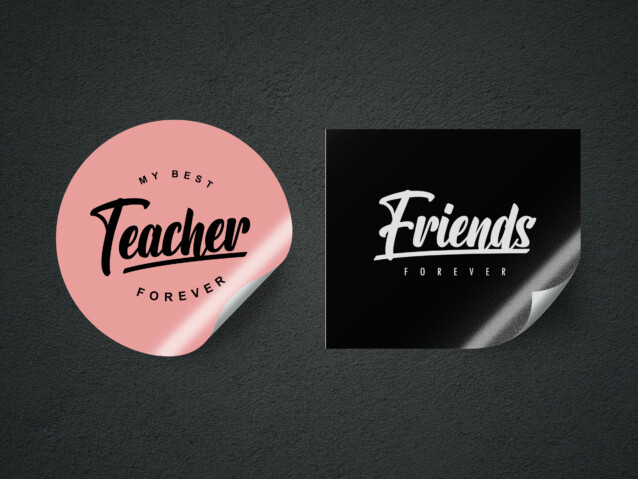
Vintage Calligraphy Font
Vintage Calligraphy Font is a fancy, professional, and cursive script font. Carefully and neatly designed, this typeface will make your creation more assertive and attractive. It is perfect for headlines, logos, crafts, and all kinds of apparel and merch projects.